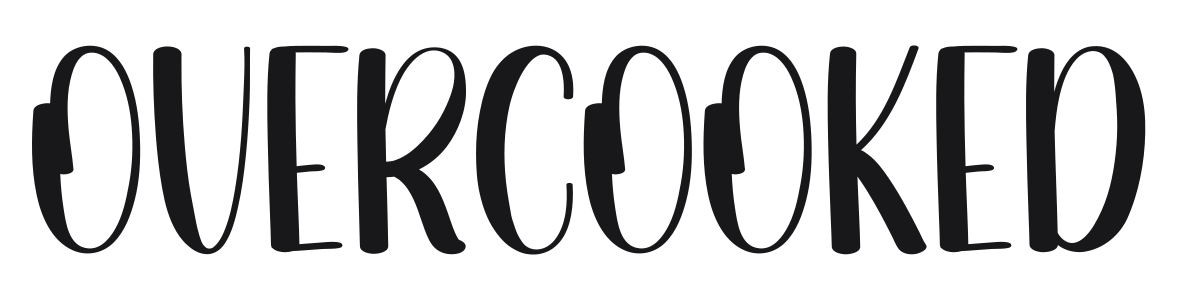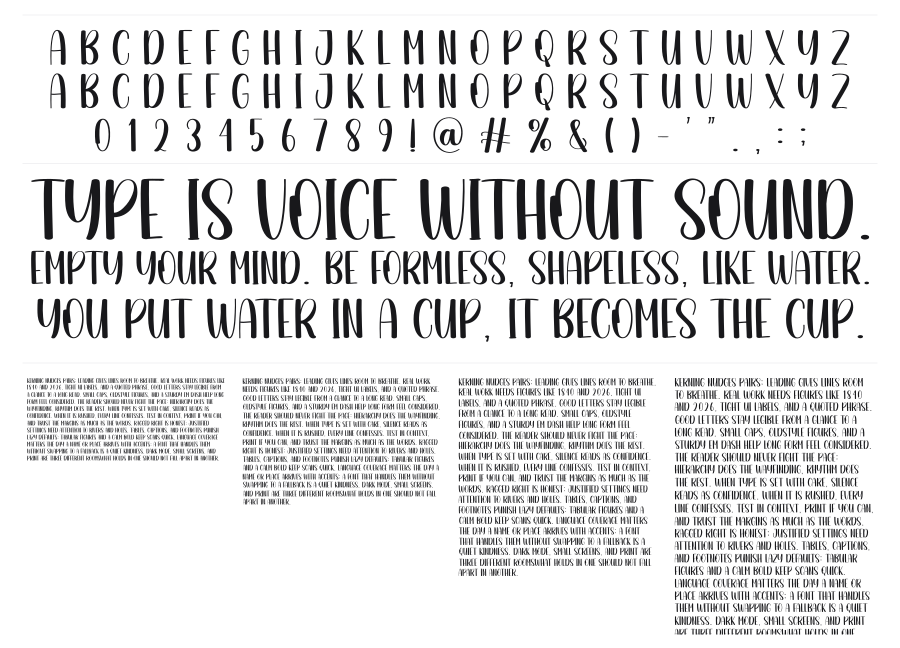
Overcooked
Overcooked is a tall, upright handwritten script with a bubbly, friendly energy that reads as hand-lettered without feeling rough. The condensed proportions and high stroke contrast give it visual punch at display sizes. It leans naturally toward wedding stationery, greeting cards, and any project that needs warmth and personality.